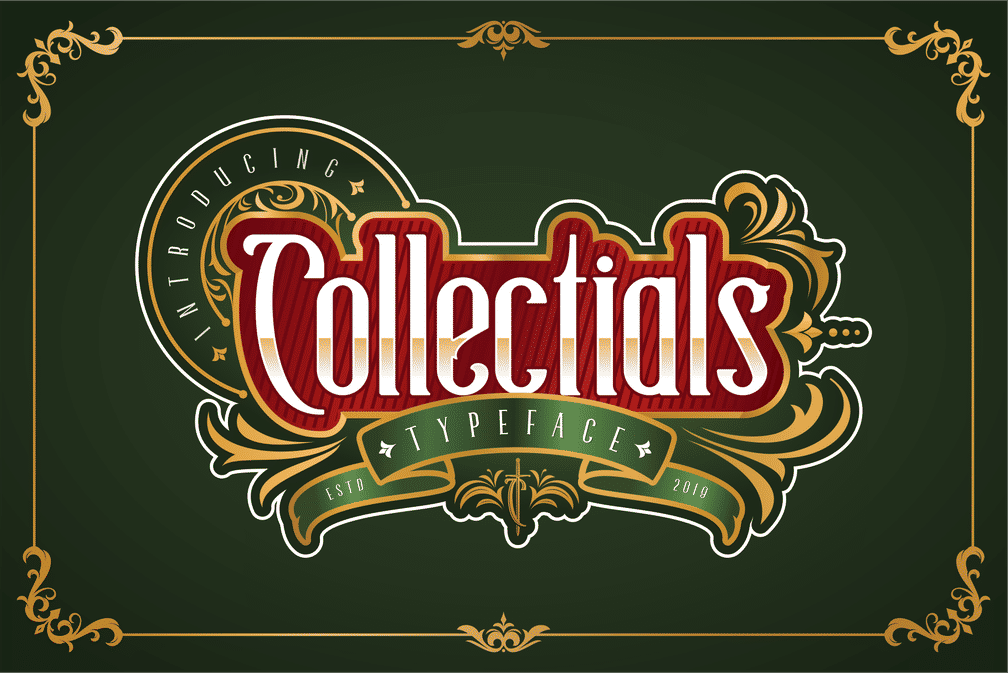
Collectials Vintage
Collection is a classic font with a minimalistic design, available in Uppercase and Lowercase. Great for vintage logo designs, headlines or packaging designs.